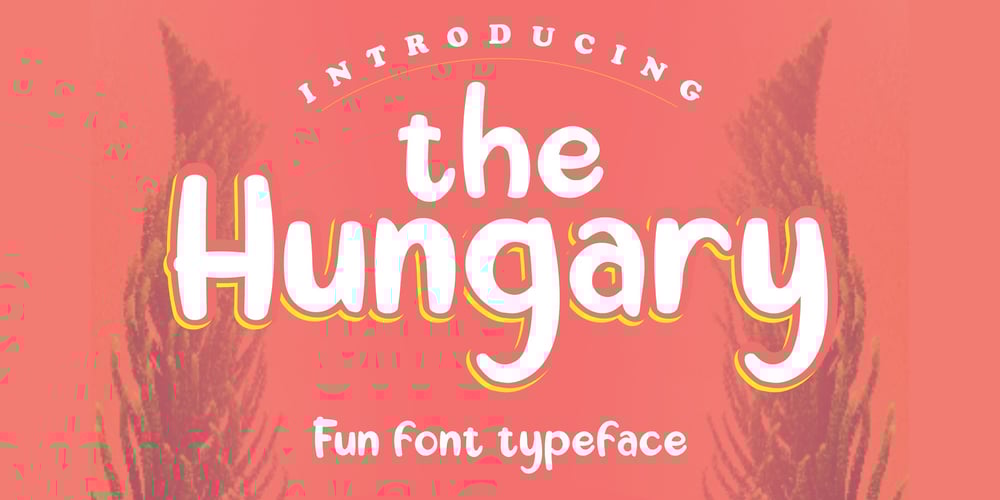
The Hungary Font Family was designed by Irfan Mahmudin and published by Skiiller Studio. The Hungary contains 1 styles and family package options. The Hungary is a playful display font with a friendly style. It is perfectly suited for a wide variety of projects!What’s include:LigaturePUA Encoded Characters – Fully accessible without additional design software.Basic Latin Language Support